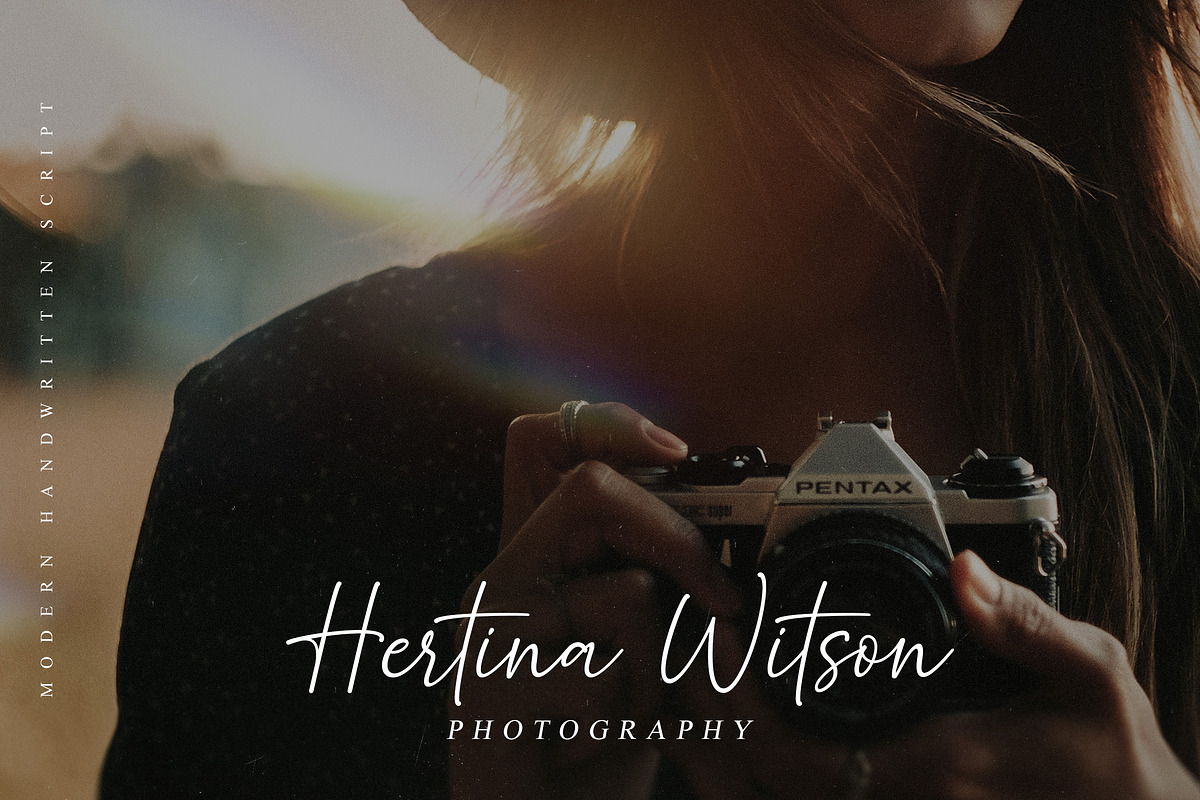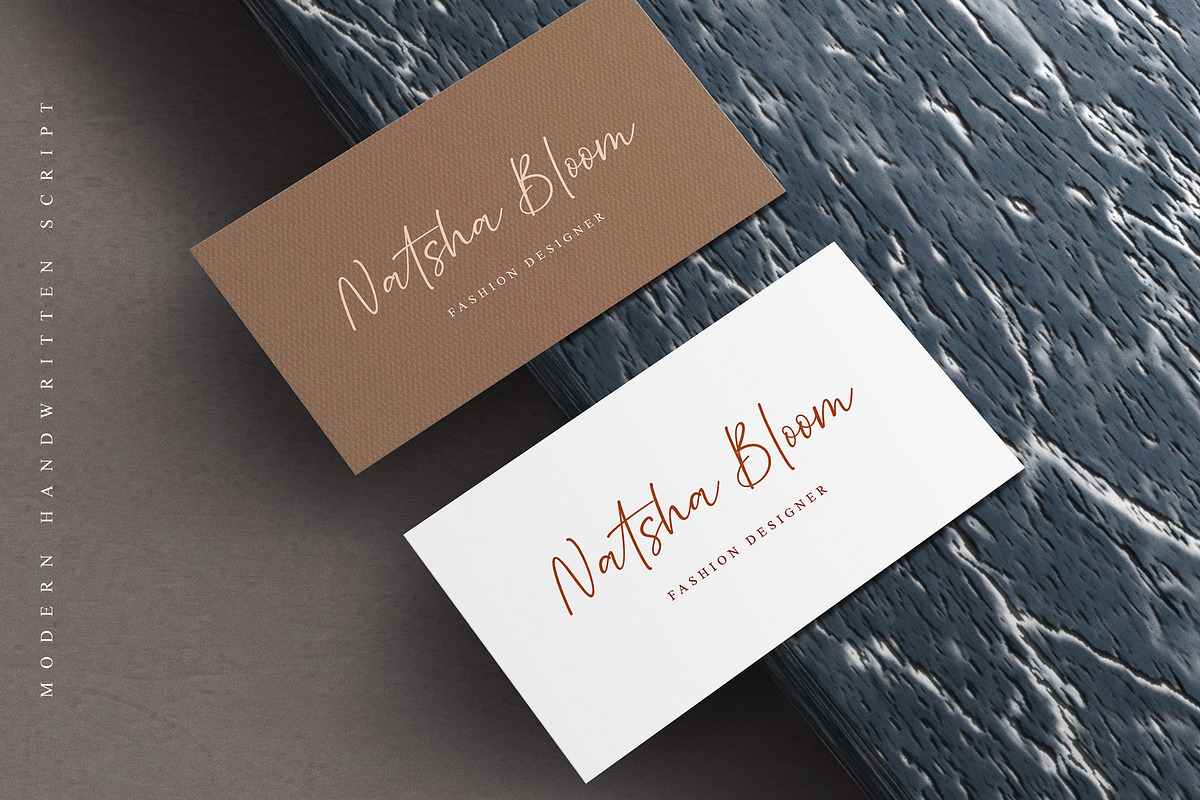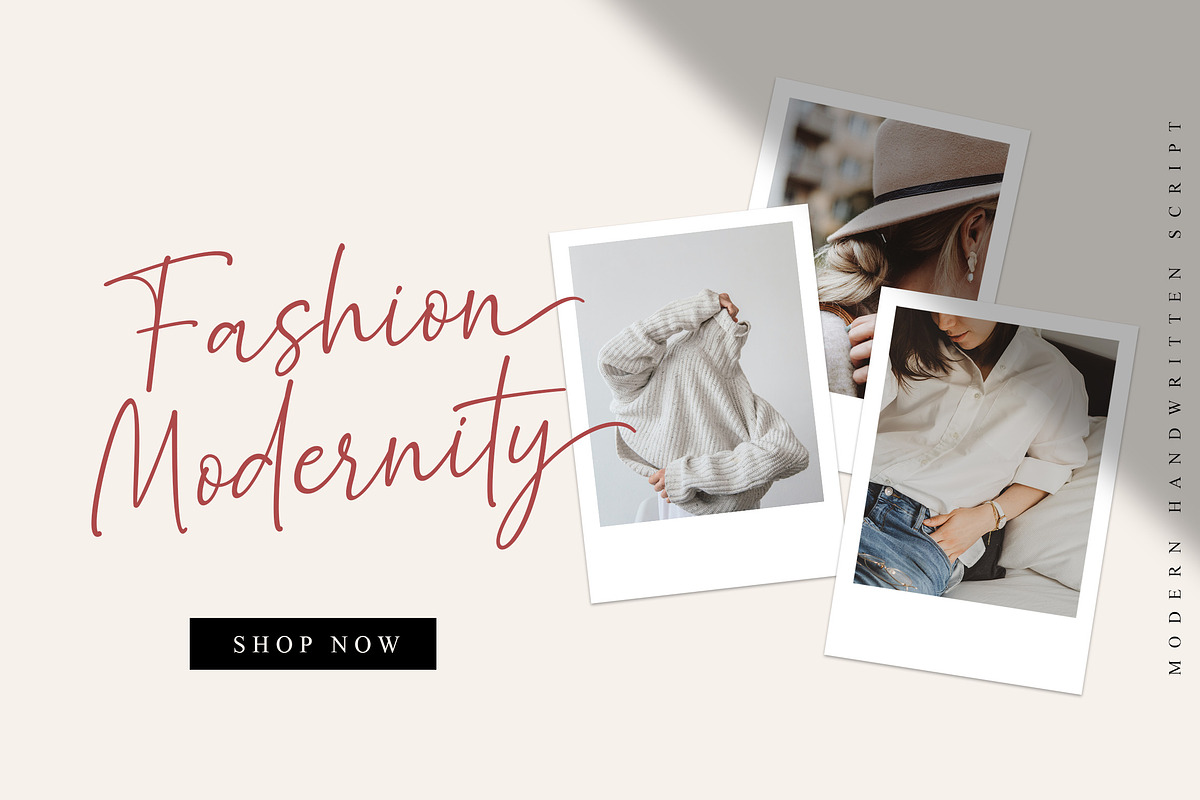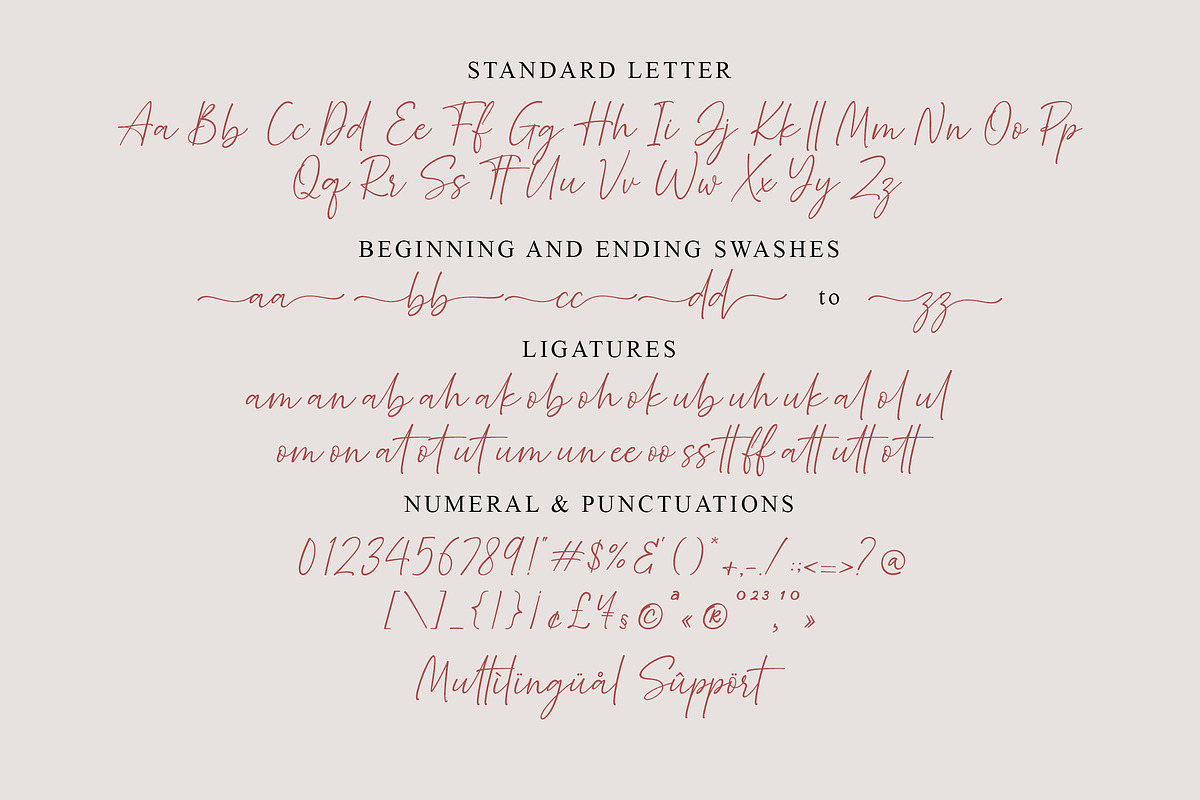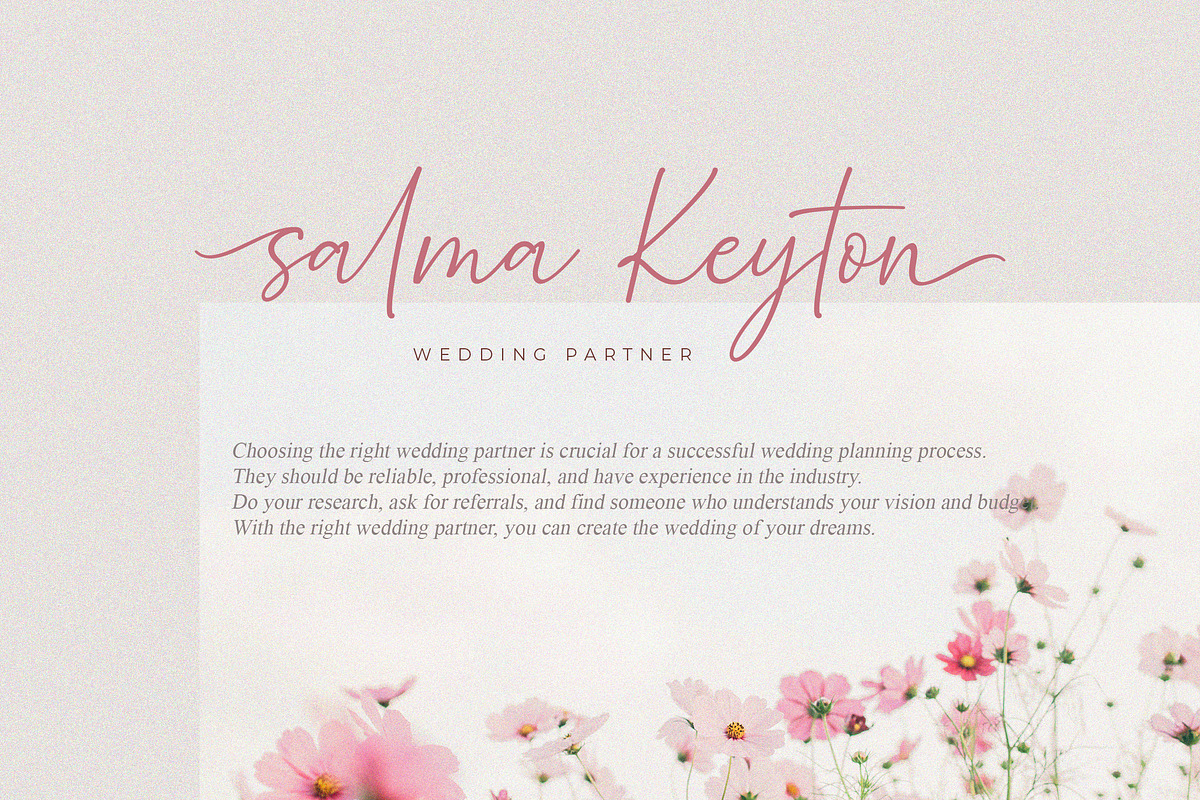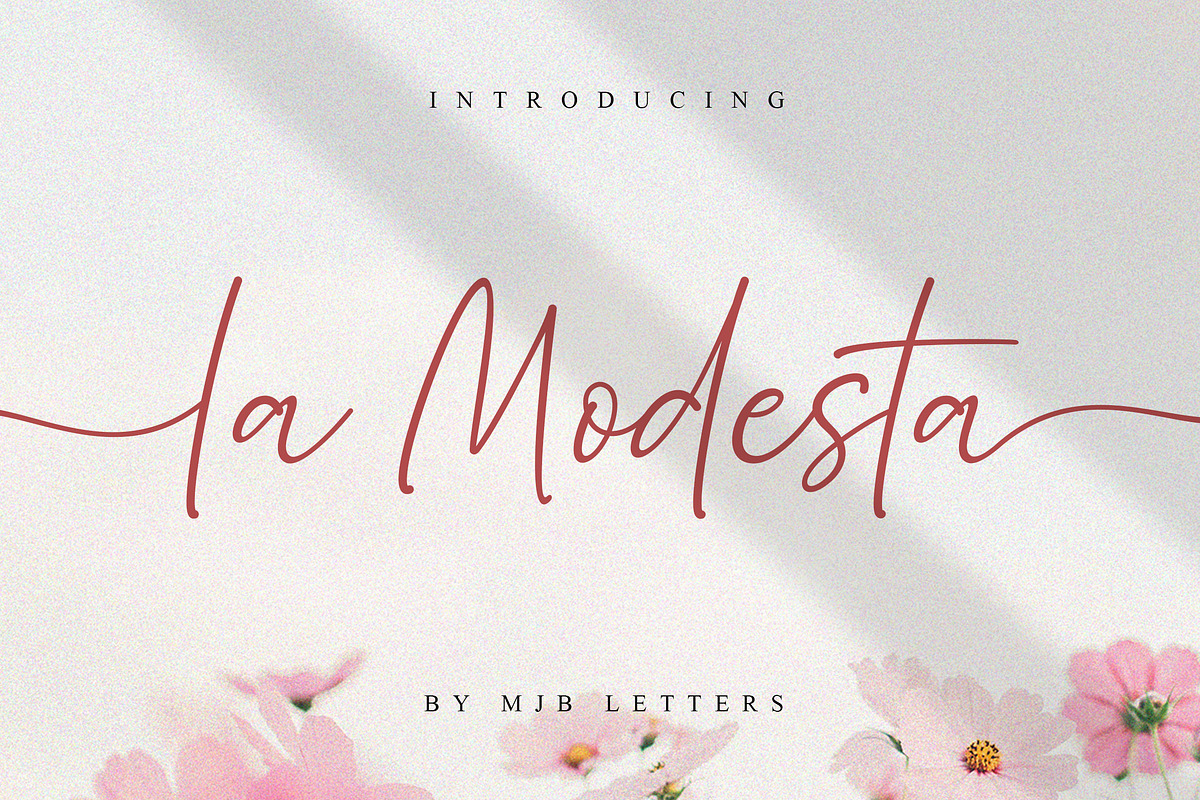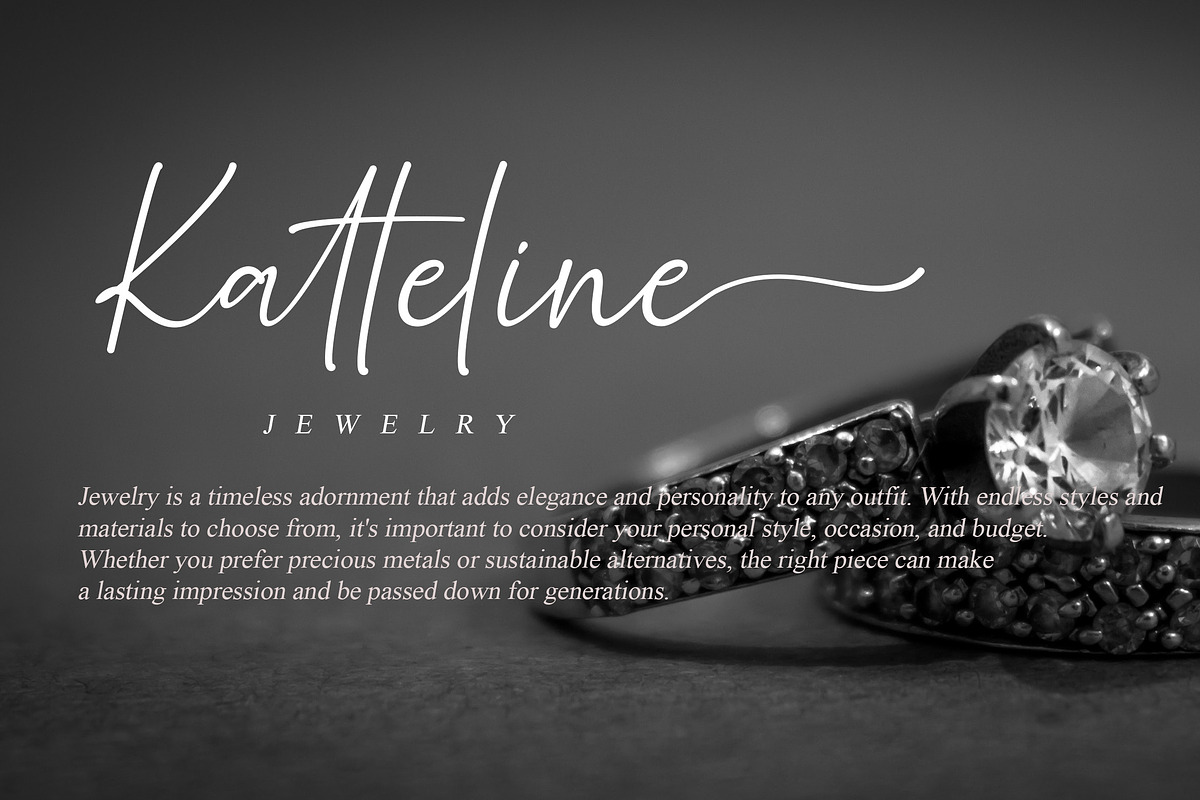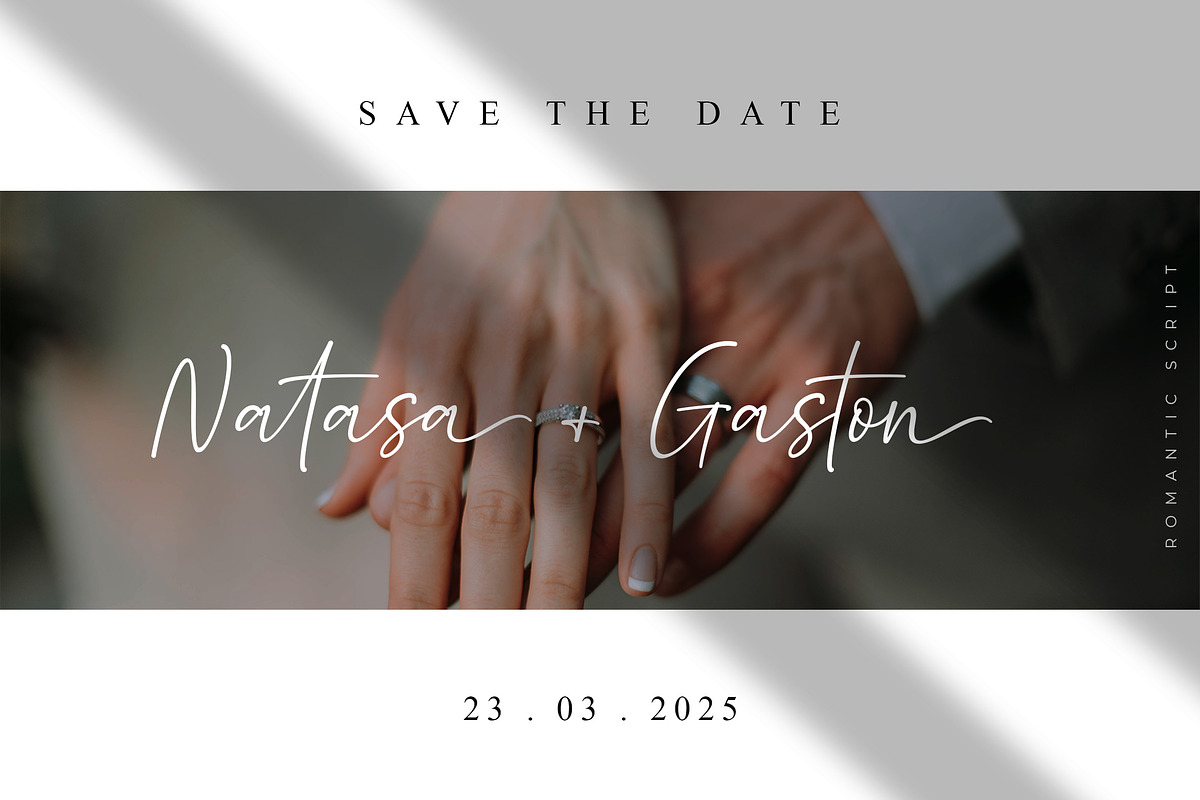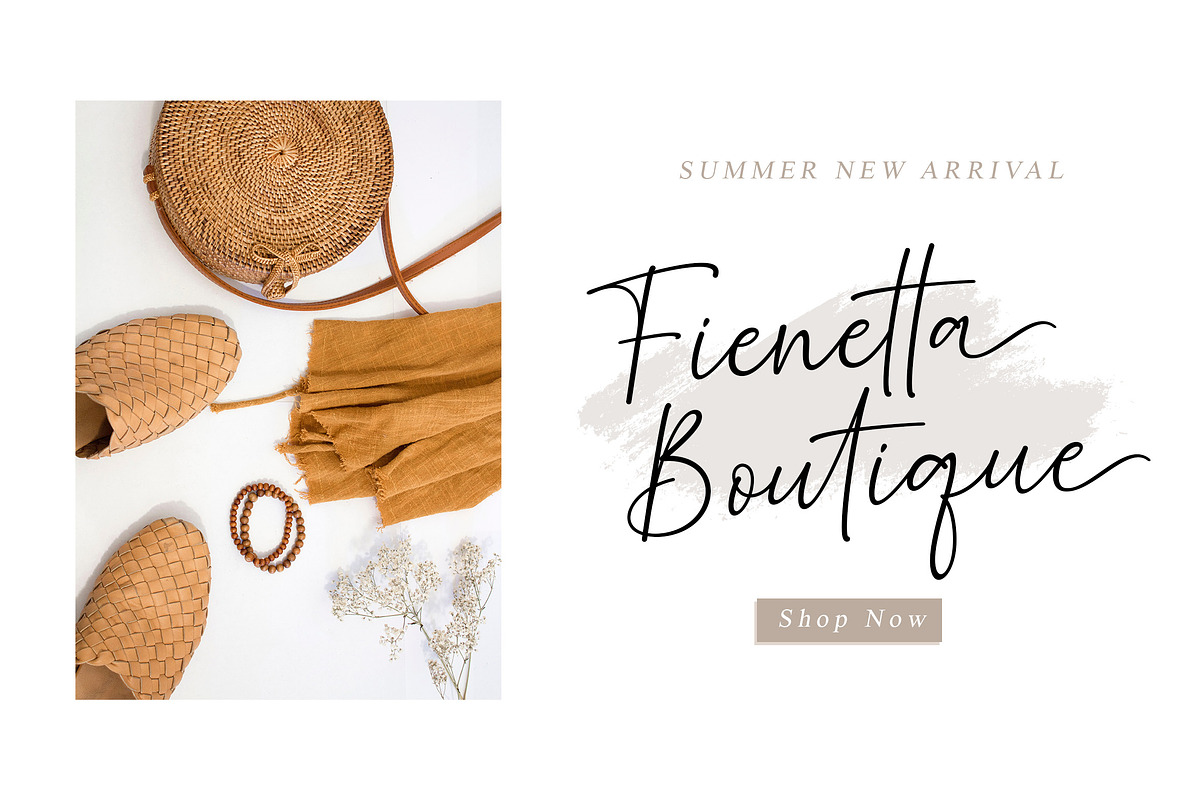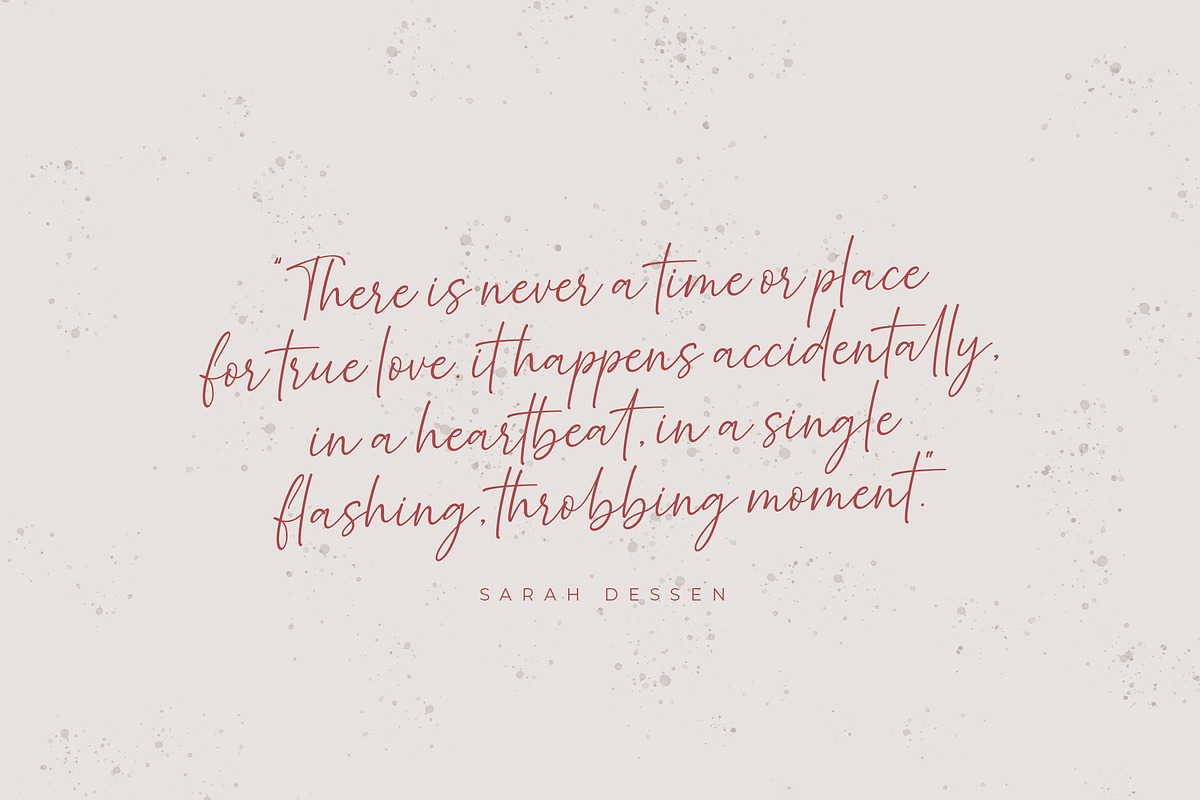
La Modesta
“La Modesta” is a beautiful handwritten font that combines casual style with elegant charm. Featuring unique swash details at the beginning and end of each letter, this font adds a touch of personality to any design. It also includes ligature substitution, allowing for smoother connections between letters, and PUA encoding for easy access to alternate characters. With multilingual support, you can use “La Modesta” in a variety of languages.